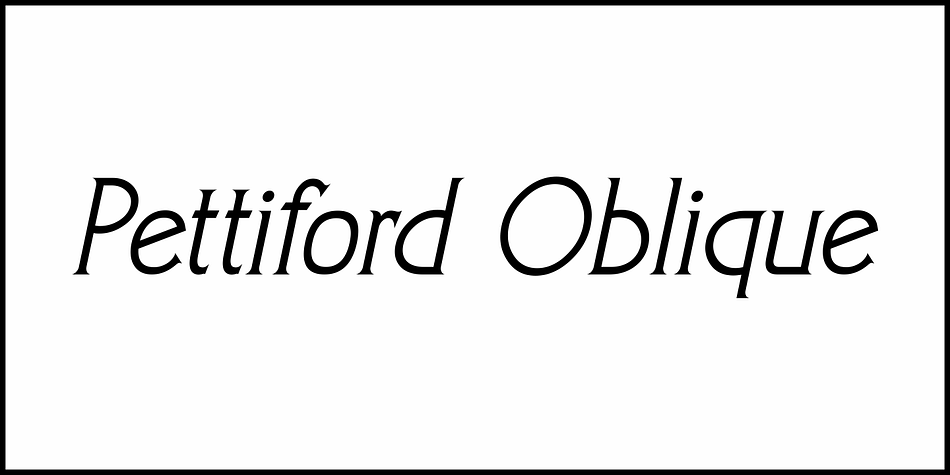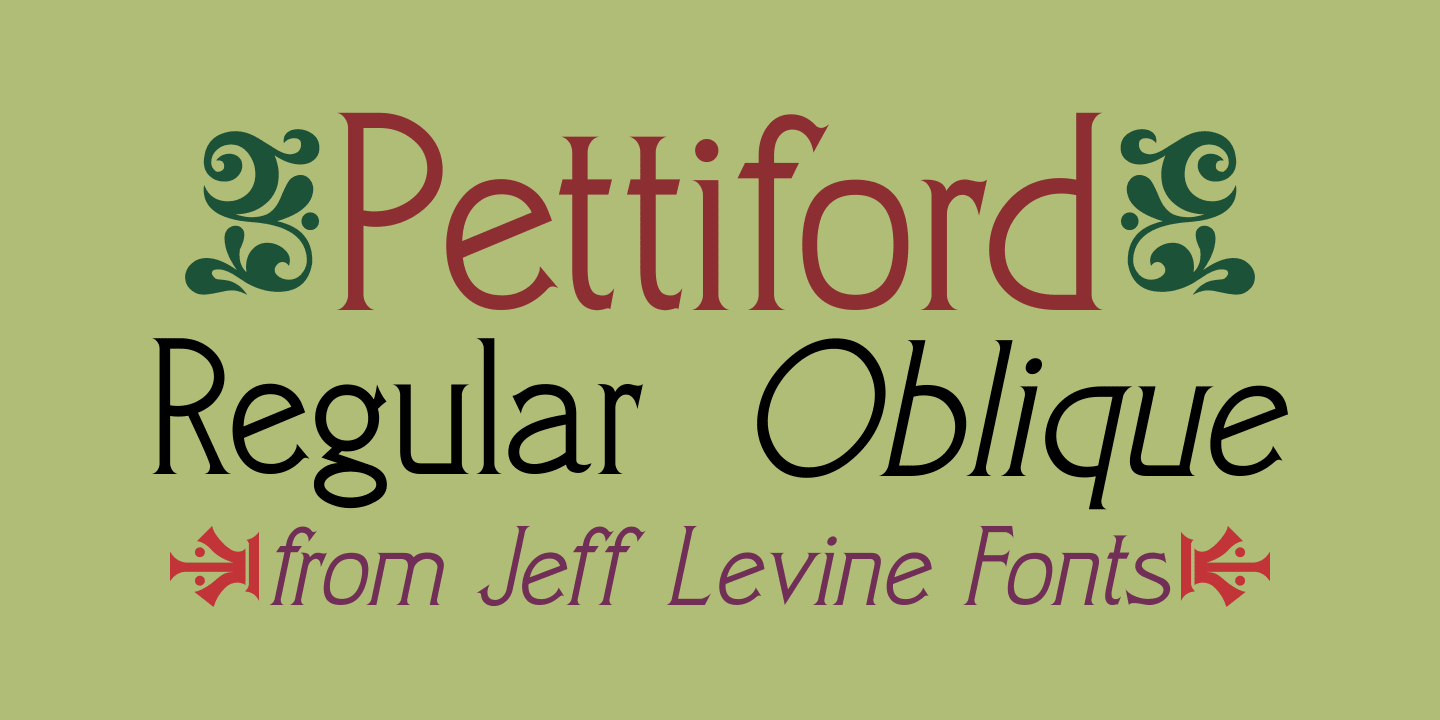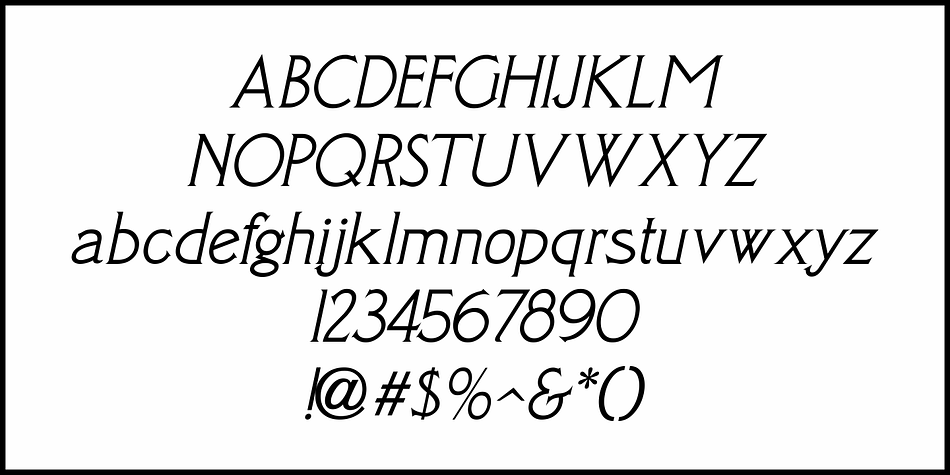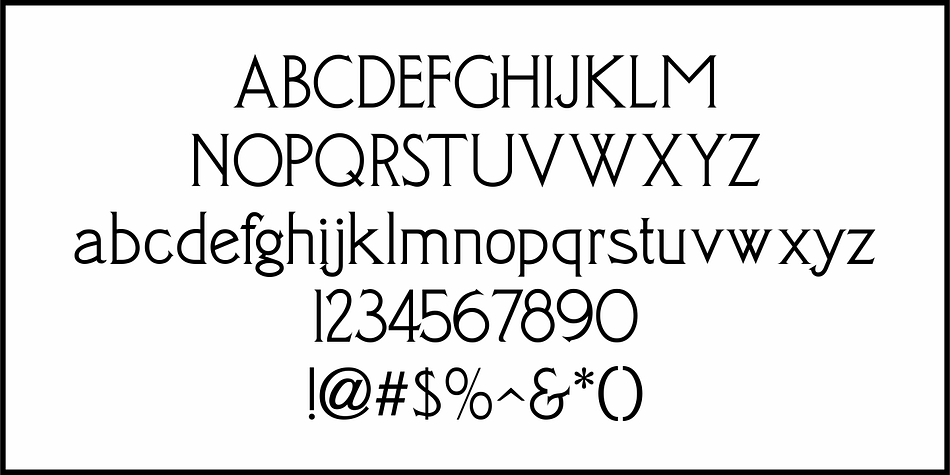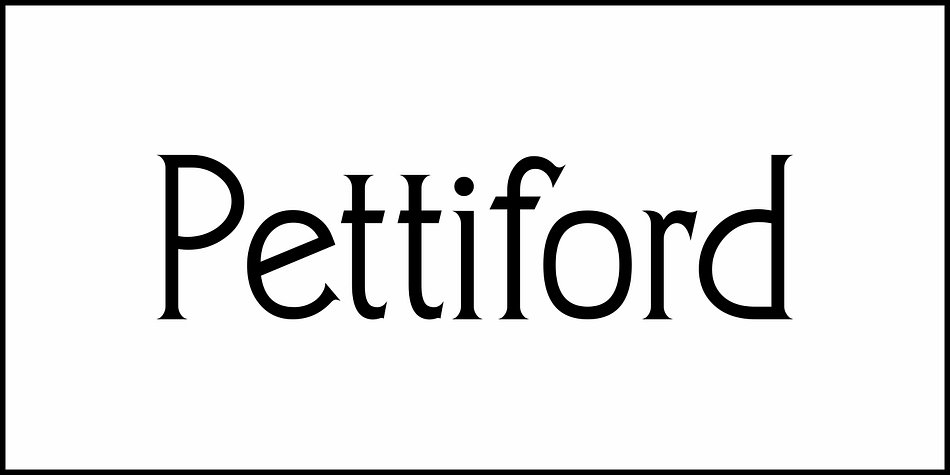
Pettiford JNL
Designed by Jeff Levine, Pettiford JNL is an art nouveau font family. This typeface has two styles and was published by Jeff Levine Fonts.
Within the pages of the Pettingill & Co. (Boston) 1901-02 specimen book is Camelot Old Style – a thin stroke spurred serif typeface with traces of Art Nouveau influence.
This had been redrawn digitally as Pettiford JNL, and is available in both regular and oblique versions.